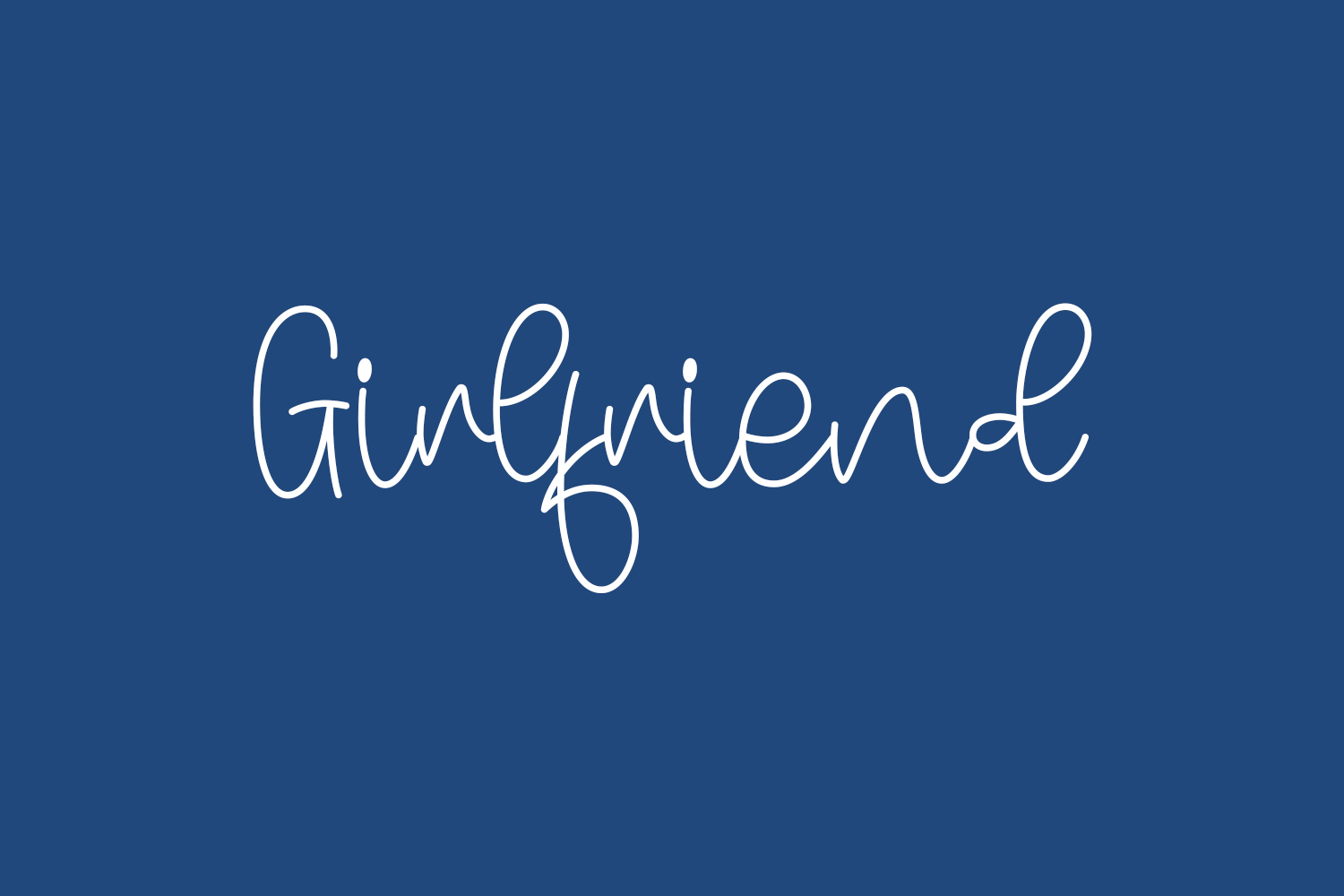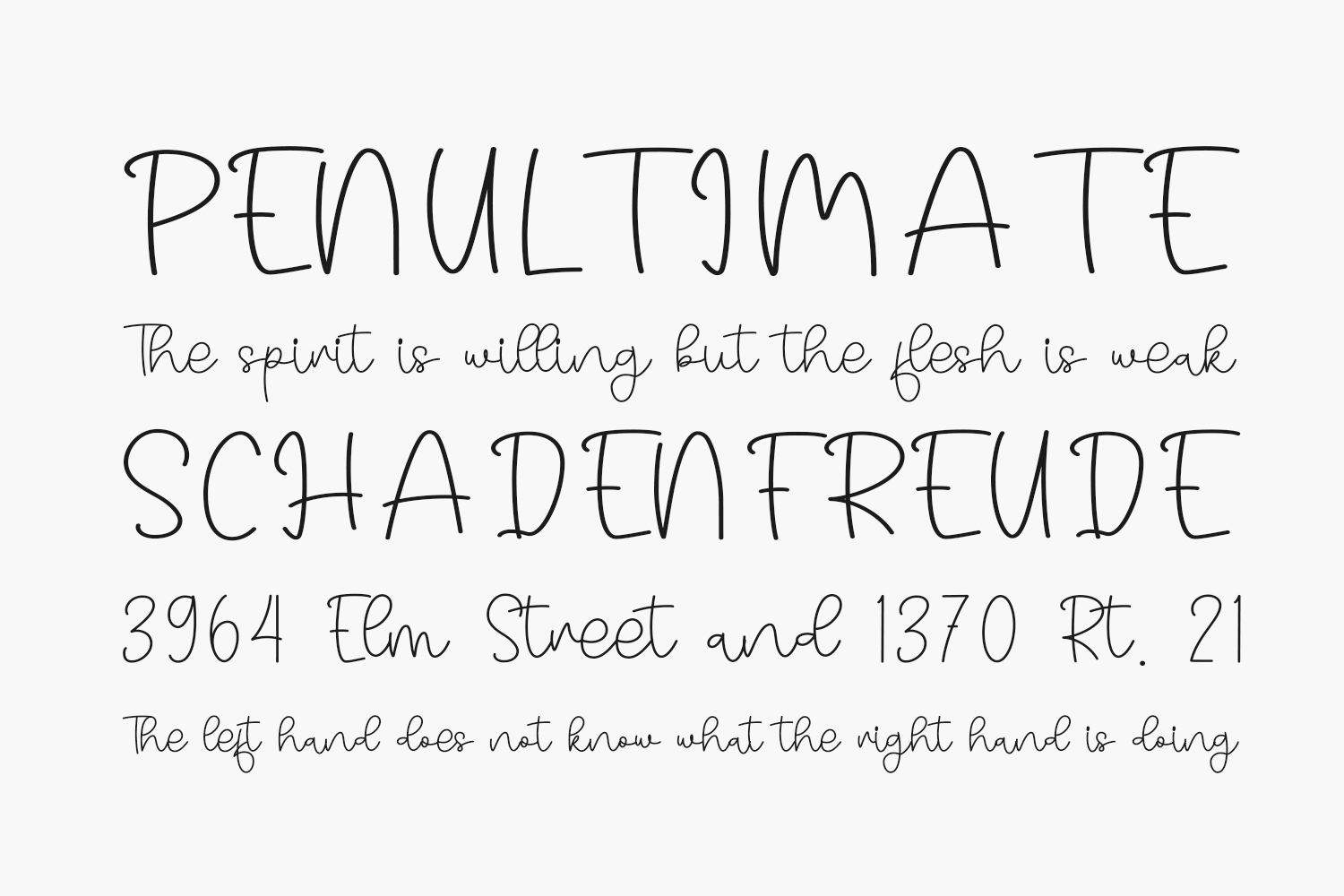
Introducing Girlfriend Free Font, a graceful handwritten font with an air of delicacy and joyfulness. Perfect for crafting wedding invitations, cards, or any design in search of a romantic and personalized touch. Elevate your creations with this charming typeface. Girlfriend Free Font is free for personal use only. Please purchase the full version for commercial use.
Designed by Nirmala Creative